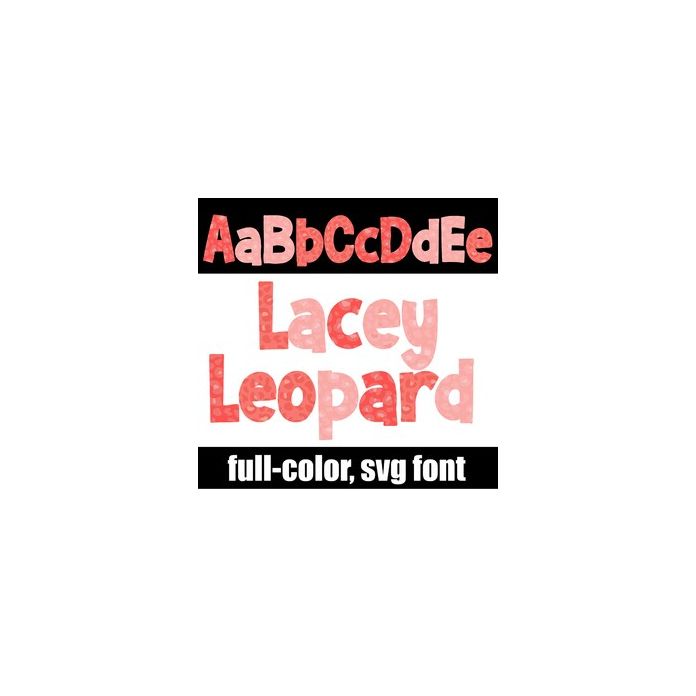
This full-color font features a chunky sans serif filled with pink, peachy, and melon leopard prints. There is an alt case w/ additional colors you can access through your system or Silhouette's glyph map.